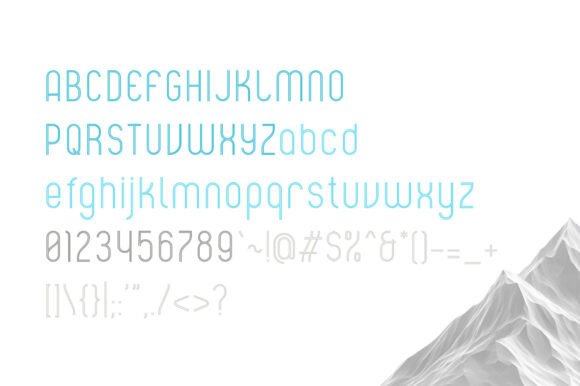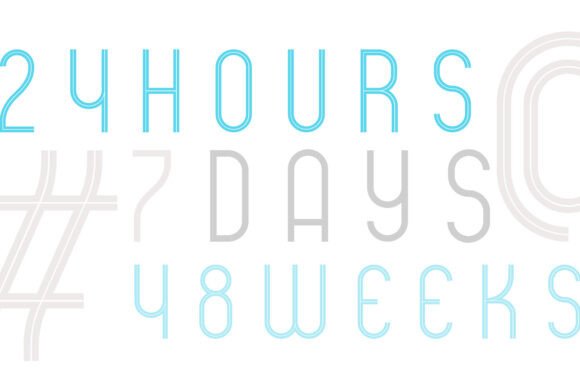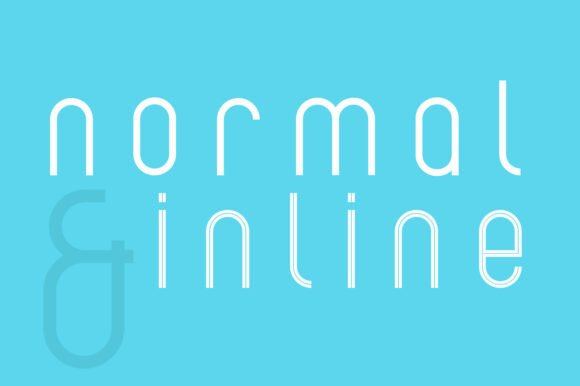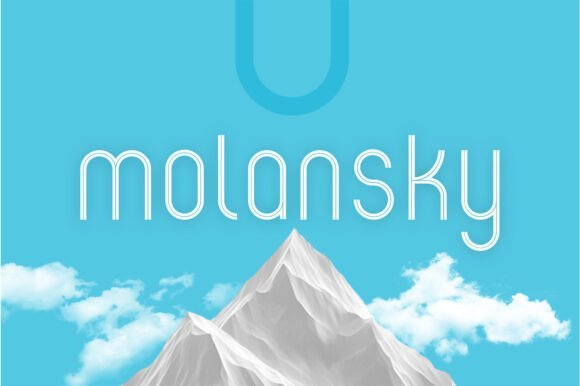
Introduction to Molansky Font
Molansky is a clean, modern, and minimalist font that is inspired by curved shapes.
It’s very versatile in use, especially in logo design or brand identity projects It comes with two styles: regular and inline.